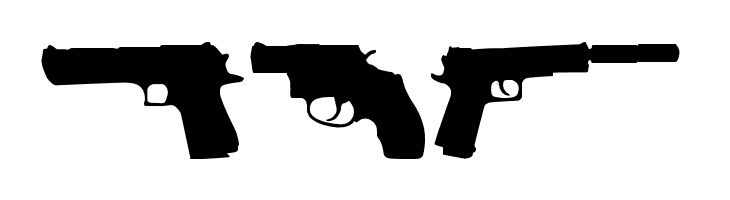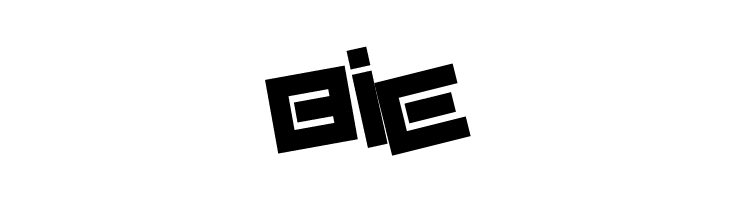
• Fiker regular promo
A bold, geometric font with sharp, angular characters and a futuristic style.
• Fiker regular promo
A bold, geometric font with angular, blocky letterforms.
• FIKey3
• Fine Serif
A classic serif font with elegant, refined strokes and pronounced serifs.
• Fireguns tfb
A novelty font using firearm silhouettes as letterforms.
• Firestorm
A bold, flame-inspired font with sharp, angular strokes and dynamic energy.
• Fisha Script
An elegant and flowing script font with ornate uppercase and smooth lowercase letters.
• Fishbone - Personal Use
A whimsical and elegant script font with playful loops and flourishes.
• FJORD BF
A bold, geometric font with sharp angles and circular forms.
• Flabby Bums handwriting